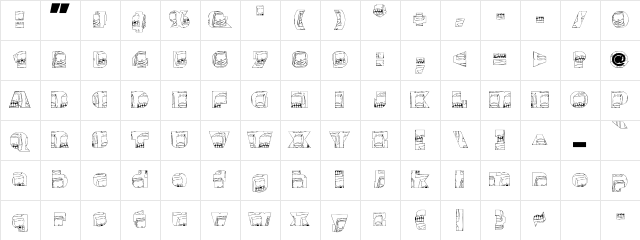
Complete Monster boxes UltraBlack glyph index. Displaying only characters natively supported by Monster boxes UltraBlack font.
Monster boxes is a composed and adaptable typeface that performs quietly and consistently across a wide range of design contexts.